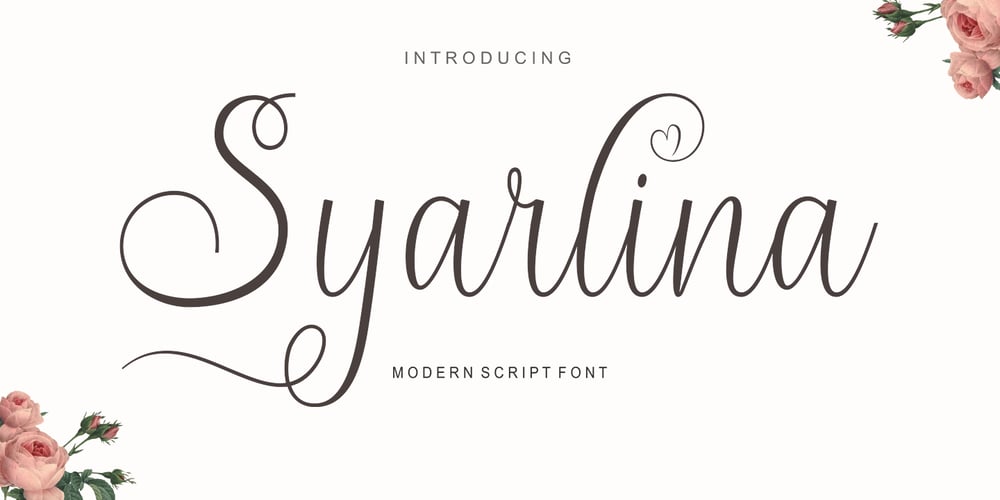
Syarlina Font Family was designed by Yur Lis and published by Stripes Studio. Syarlina contains 1 styles and family package options. Introducing the latest font Syarlina Script with a kind of modern hand scratches, I hope you are interested in this font. It can easily and simply be used because there are a lot of features in it: Syarlina Script contains a complete set of lower and uppercase letters, assorted punctuation, numbers, multilingual support and also several ligatures and alternate style Stylistic. To enable the OpenType Stylistic alternates, you need a program that supports OpenType features such as Adobe Illustrator CS, Adobe Indesign & CorelDraw X6-X7, Microsoft Word 2010 or later versions. And there are additional ways to access alternates/swashes, using Character Map (Windows), Nexus Font (Windows), Font Book (Mac) or a software program such as PopChar (for Windows and Mac). How to access all alternative characters using Adobe Illustrator: https://www.youtube.com/watch?v=XzwjMkbB-wQ How to access all alternative characters, using Windows Character Map with Photoshop: https://www.youtube.com/watch?v=Go9vacoYmBw This Font has given PUA unicode. Thank you for your purchase!